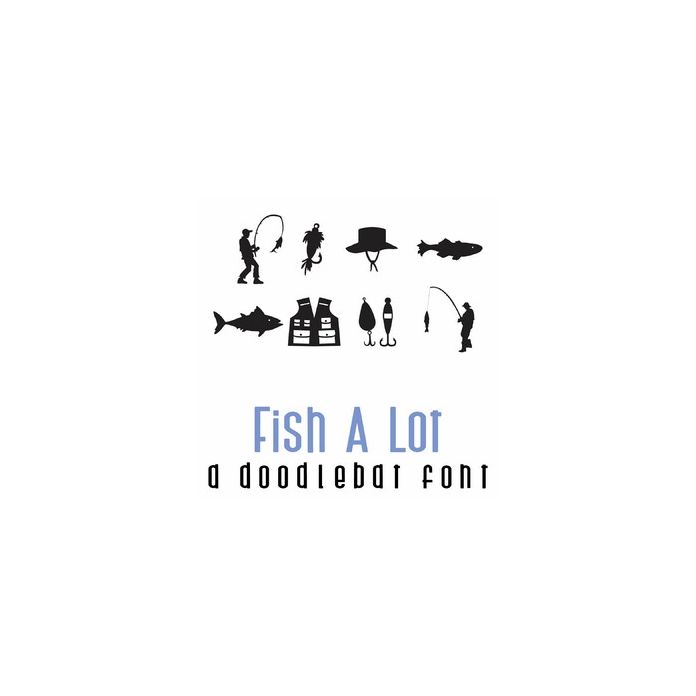
This fun doodlebat font features 26 fishing silhouettes. Perfect for cards, gifts, decor, crafts, scrapbook pages, planner stickers, Father's Day and more!